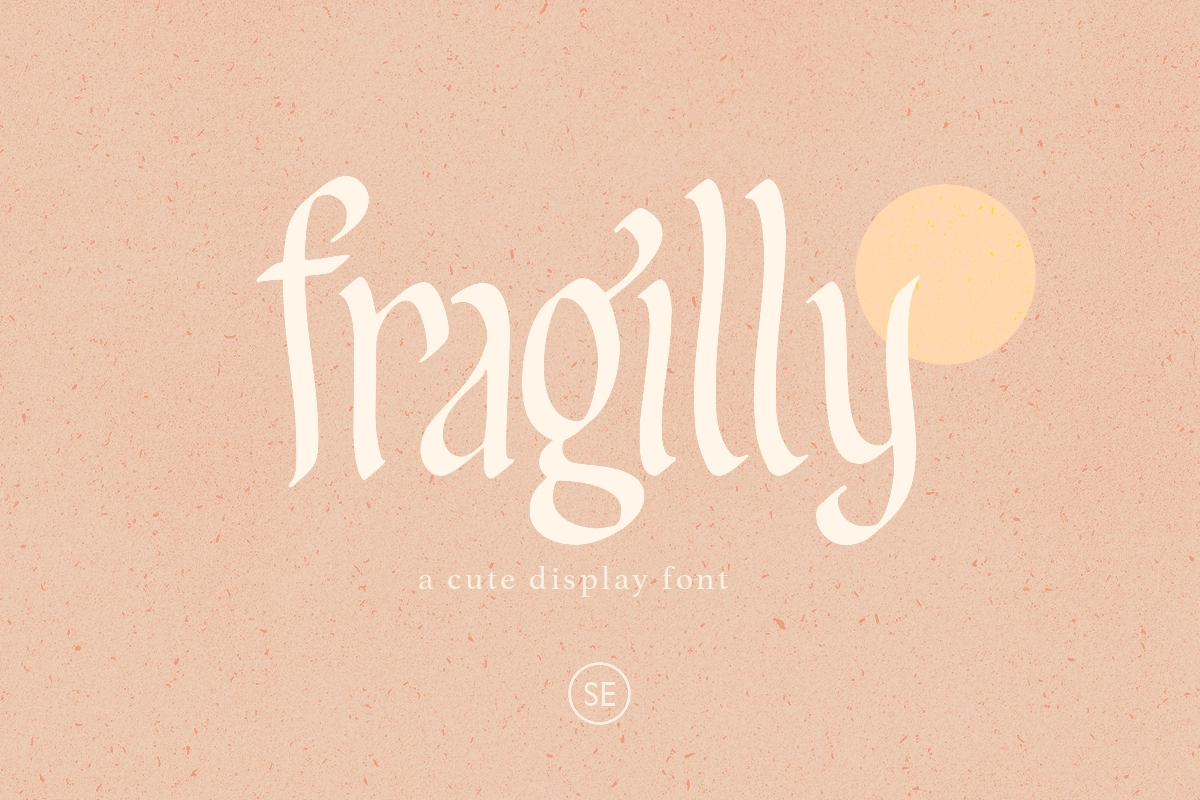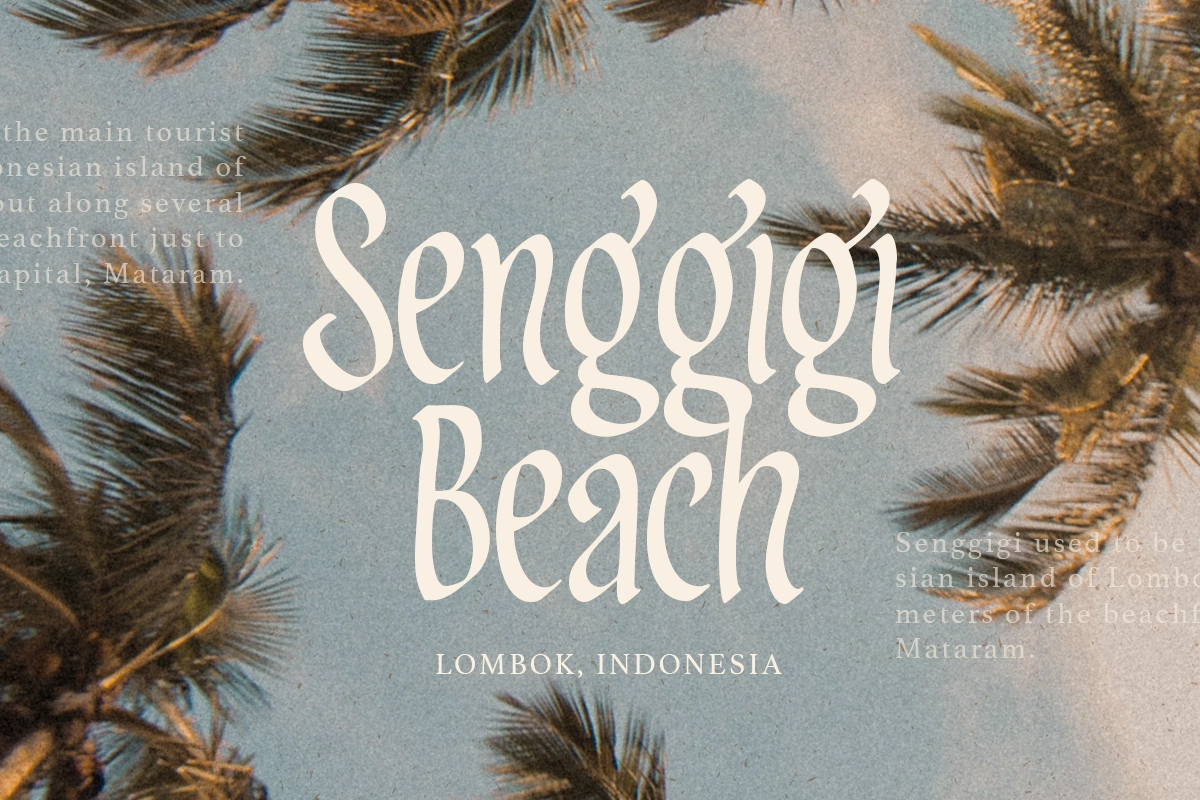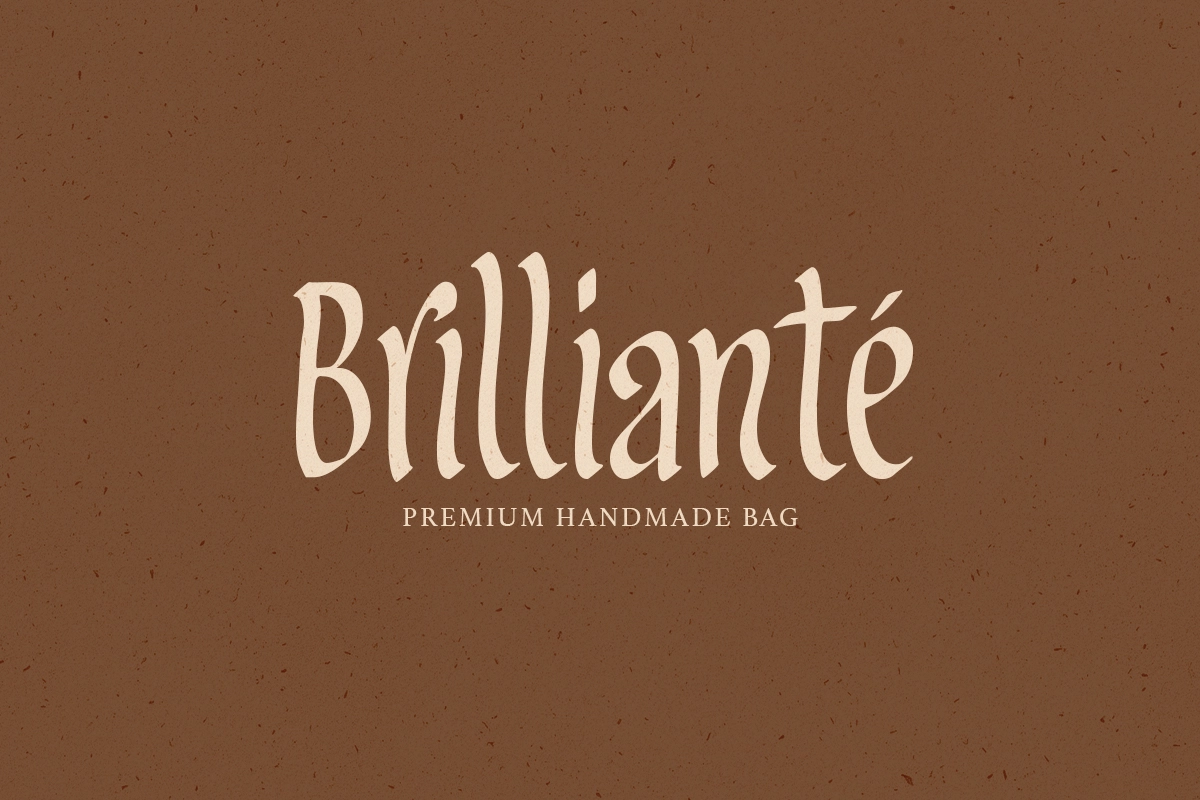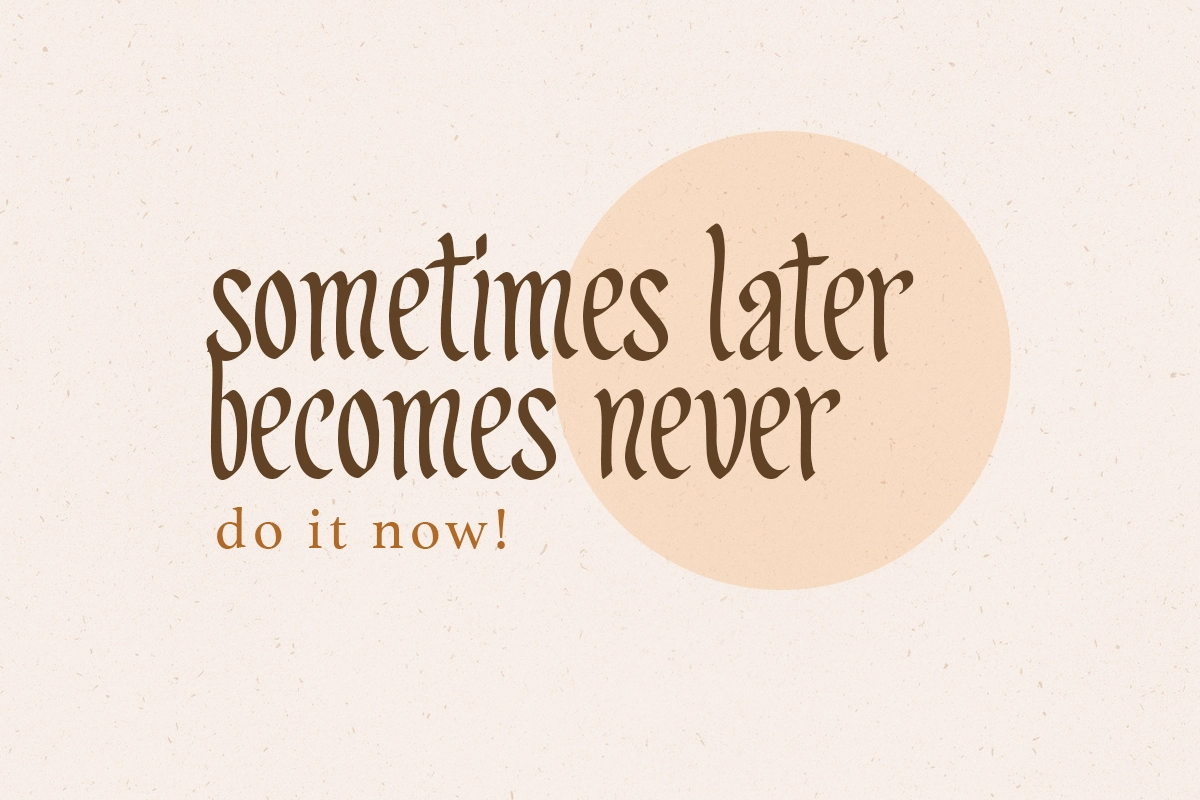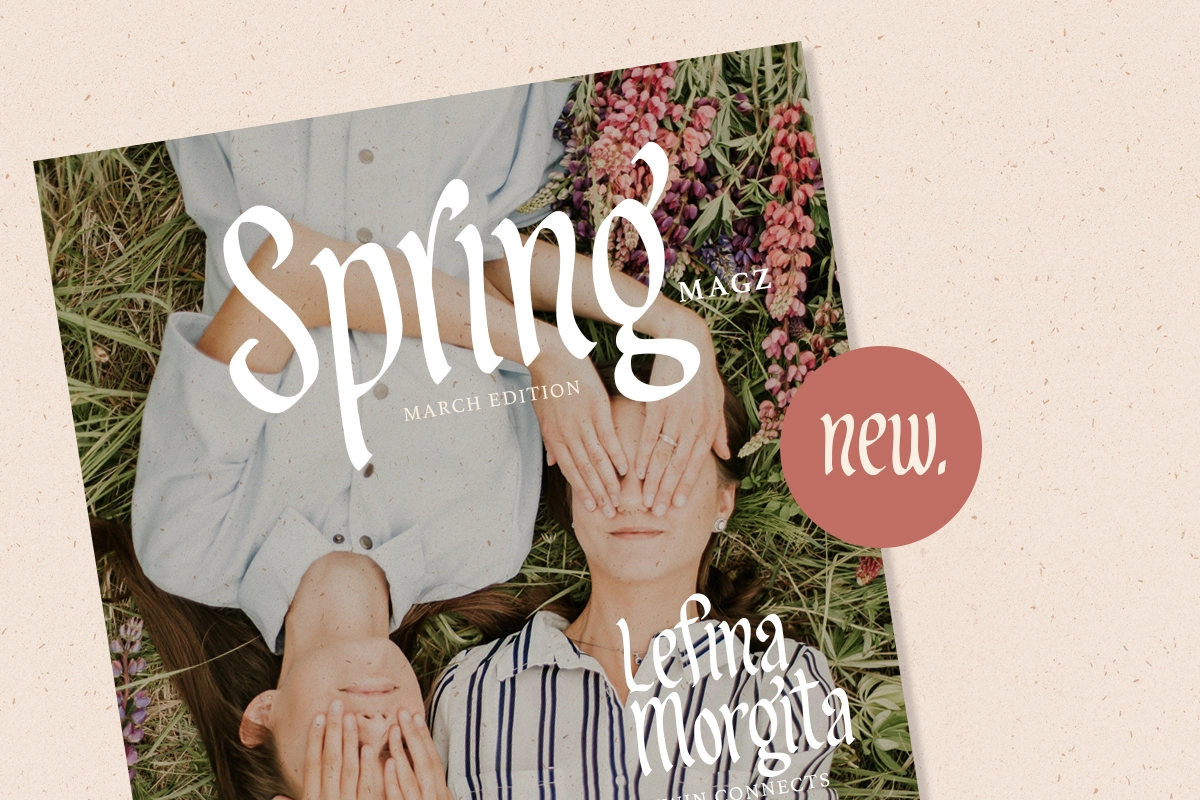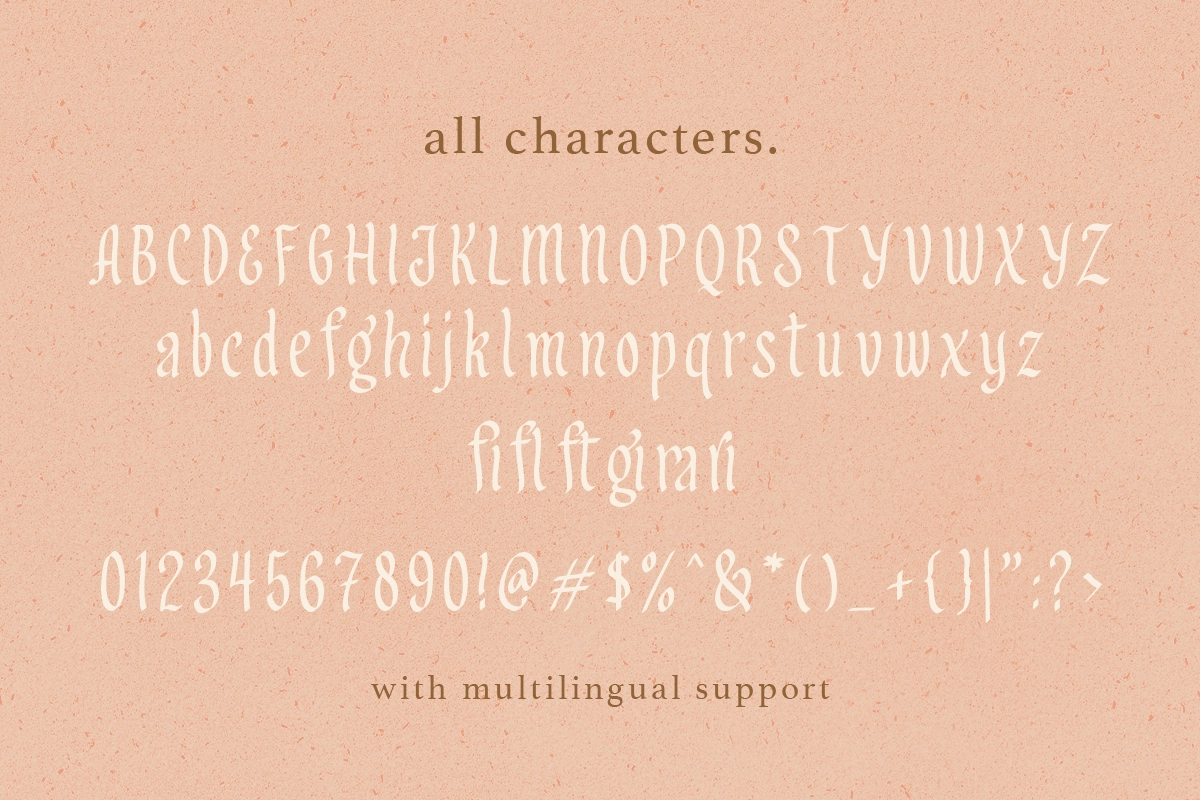
Fragilly - A Cute Font
Fragilly
Fragilly is a modern calligraphic font that will make your project more stunning. Comes with cute and quirky vibes. There's also essential ligatures that will you often use! Also comes with multilingual support and PUA encoded!